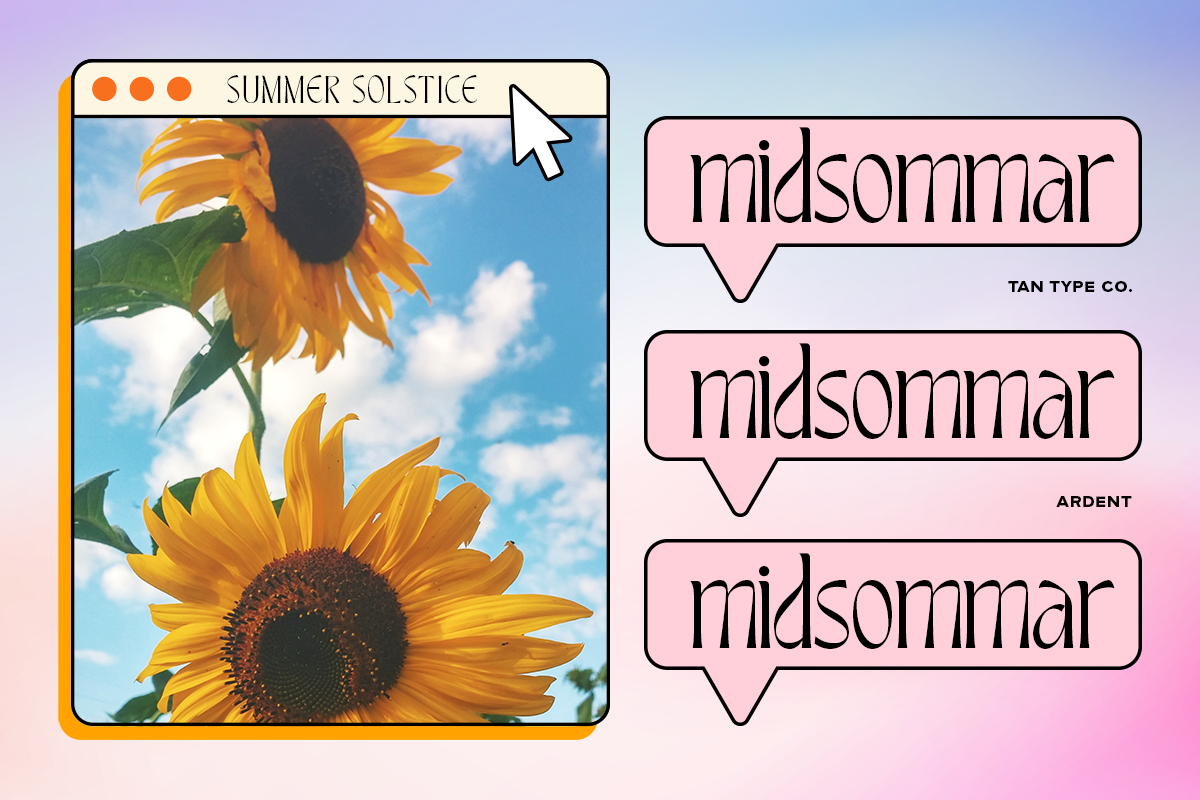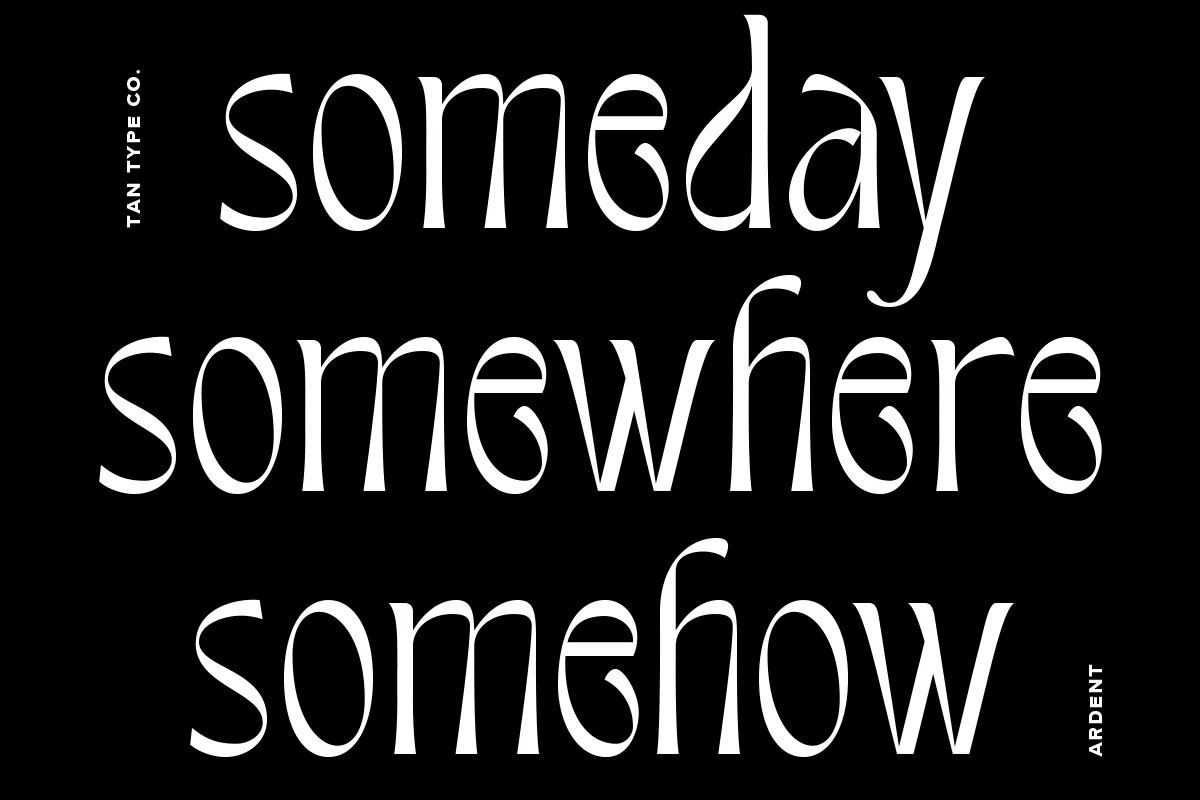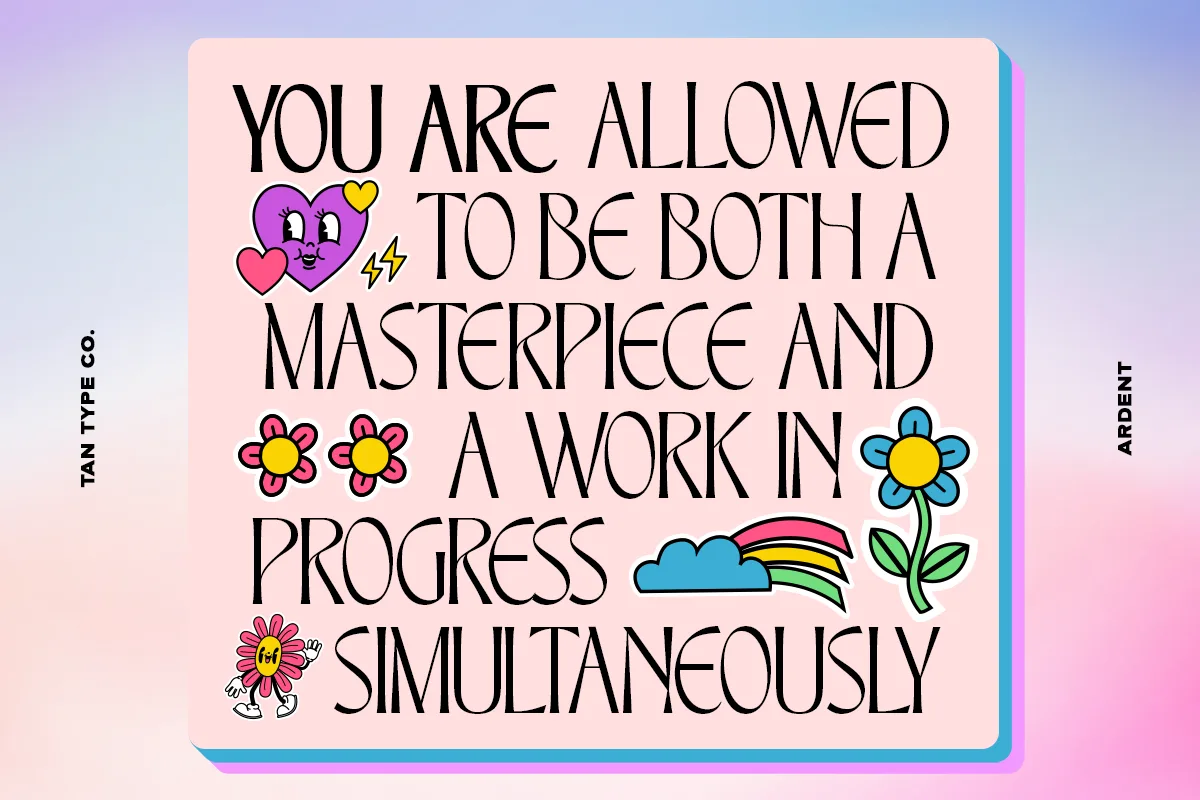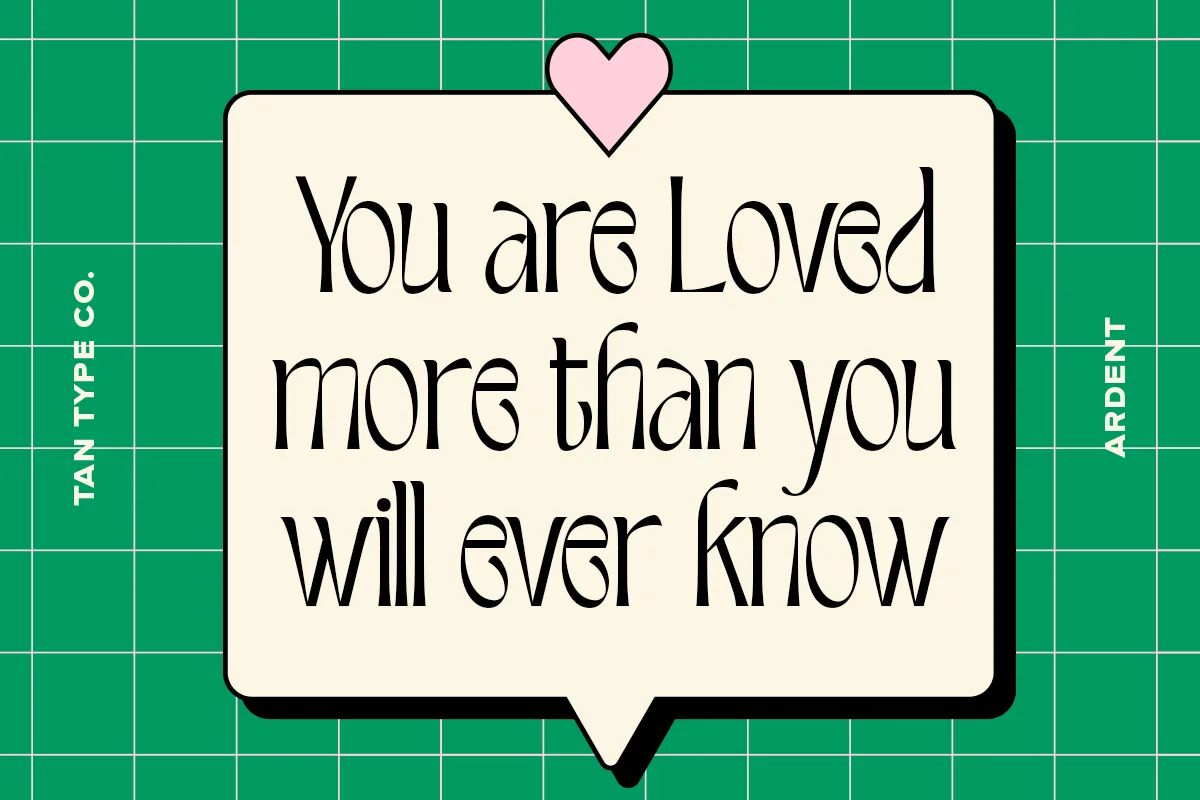
Tan Ardent Font
TAN – ARDENT is a display serif inspired by the art deco. It has long condensed form with alluring shapes.
Tan Ardent Font: Display Serif
Tan Ardent font preview — sample text
Tan Ardent font alphabet, numbers and glyphs
Tan Ardent font style preview
Tan Ardent font used in a design mockup